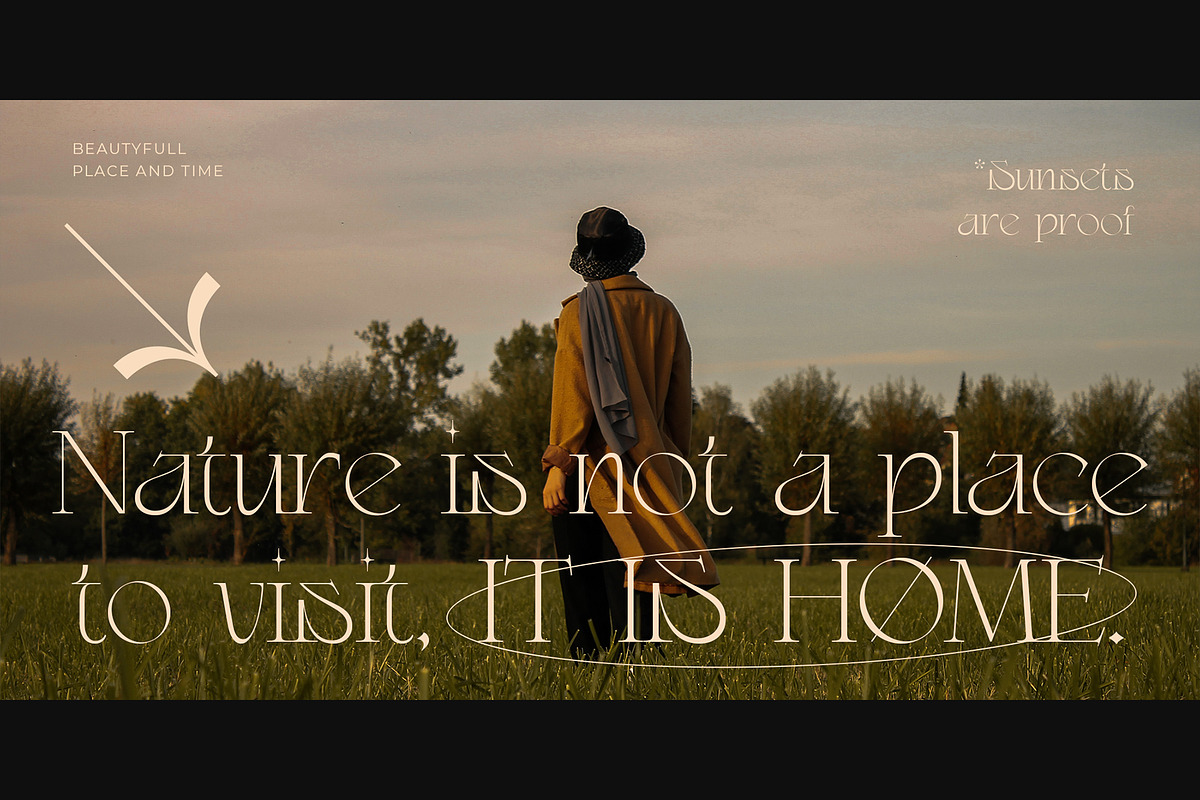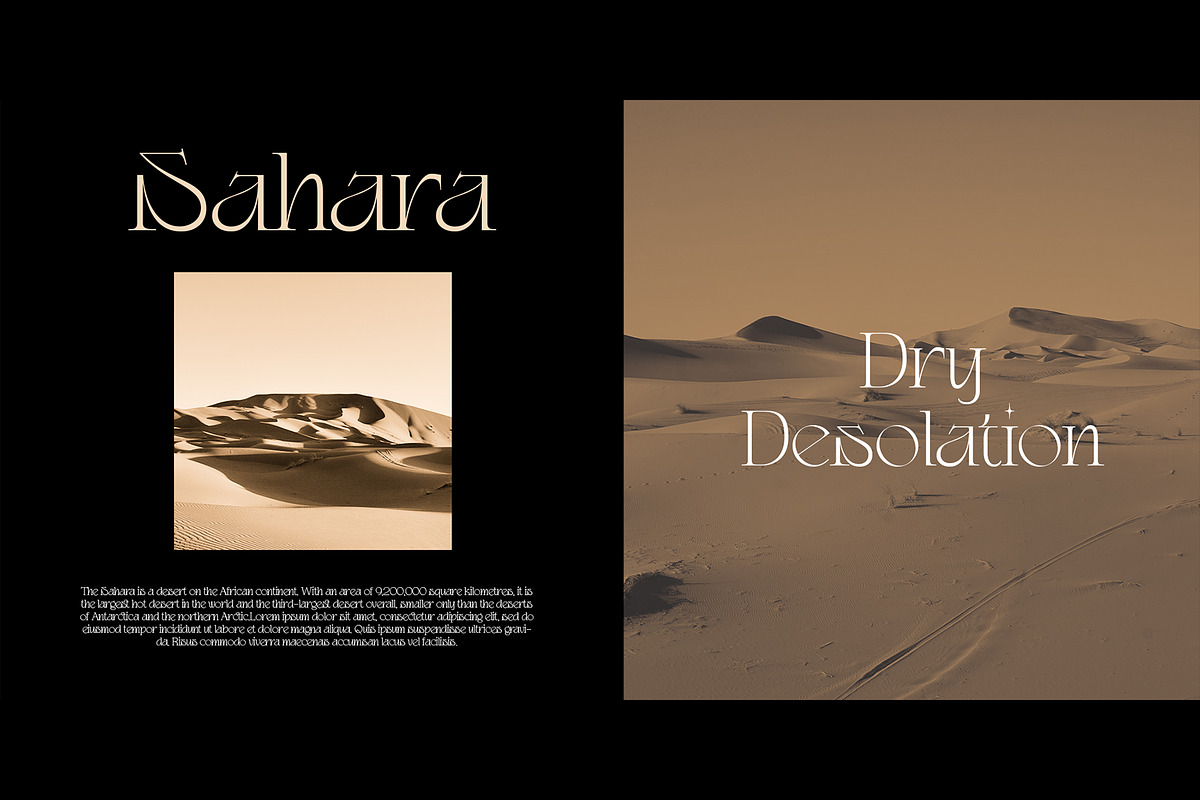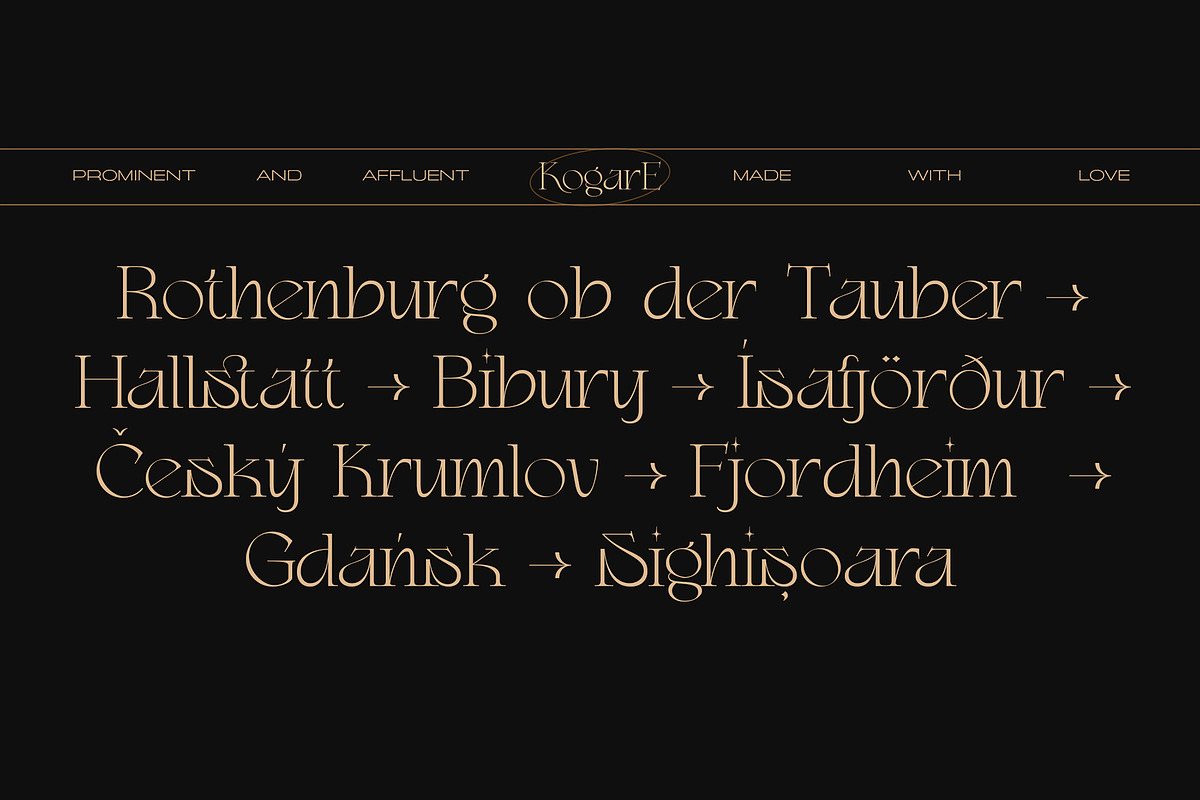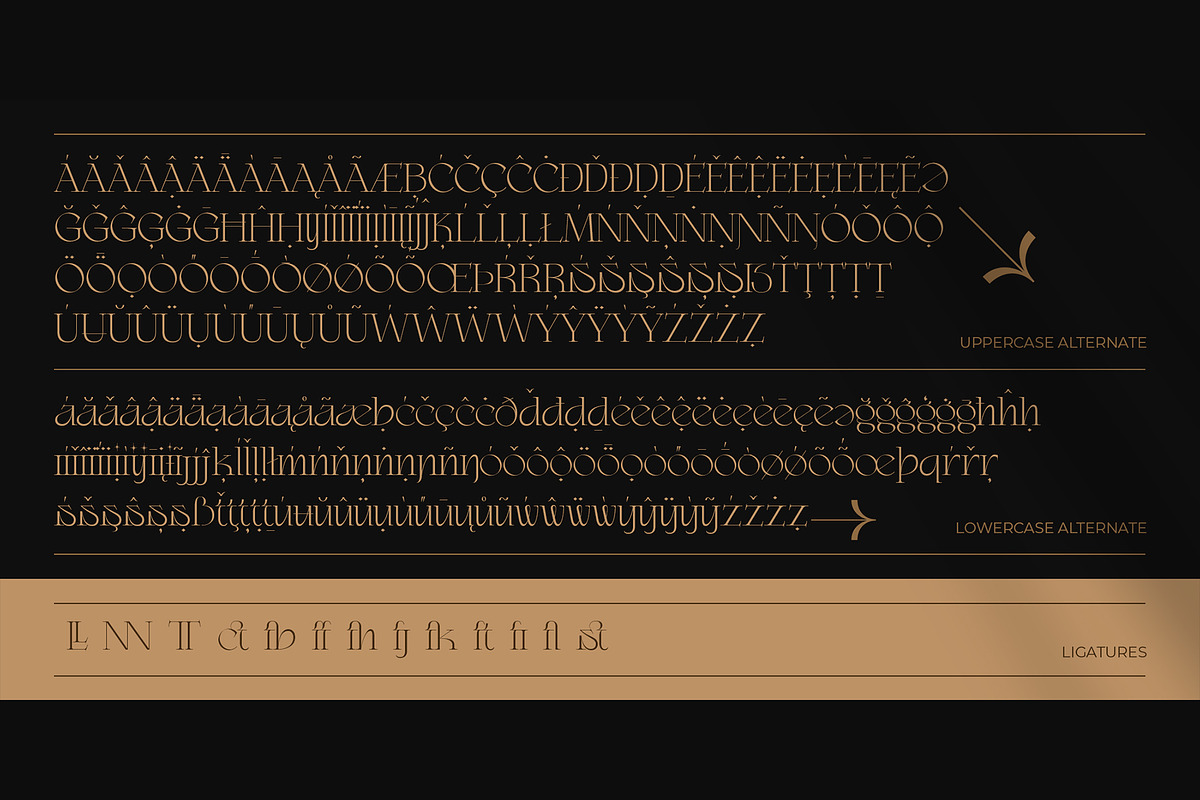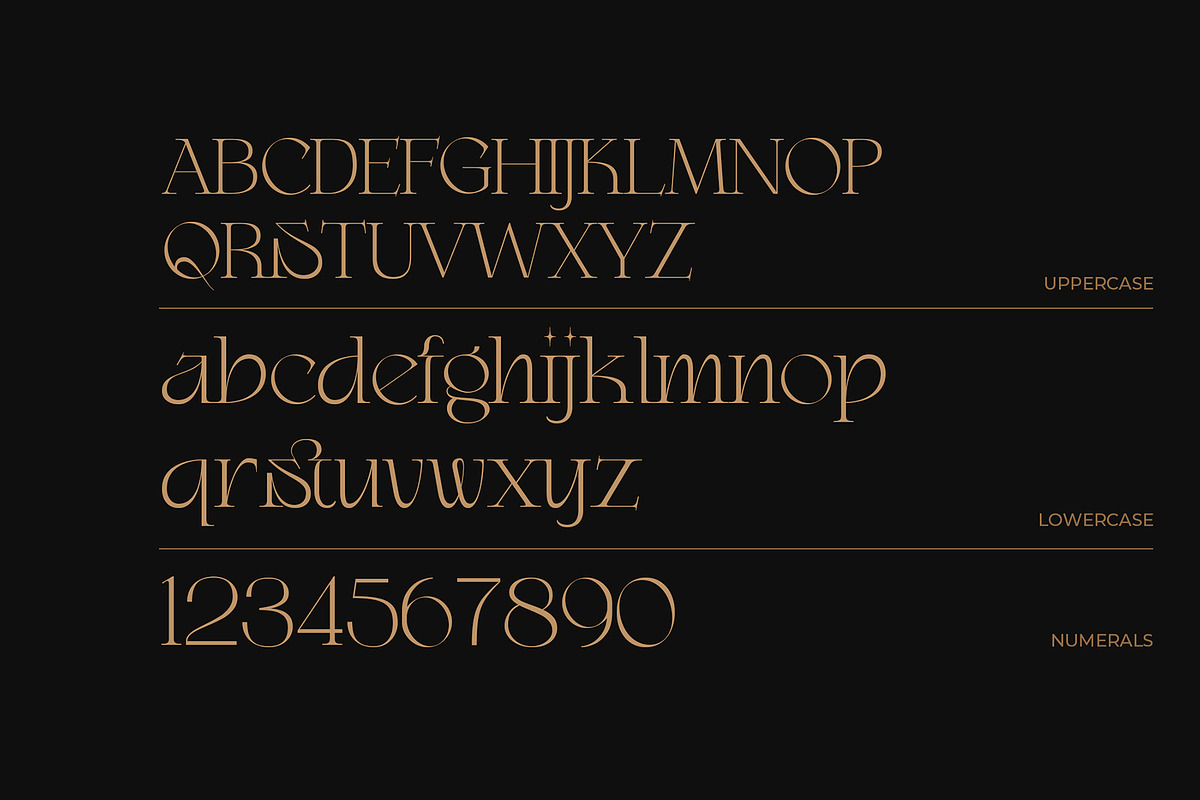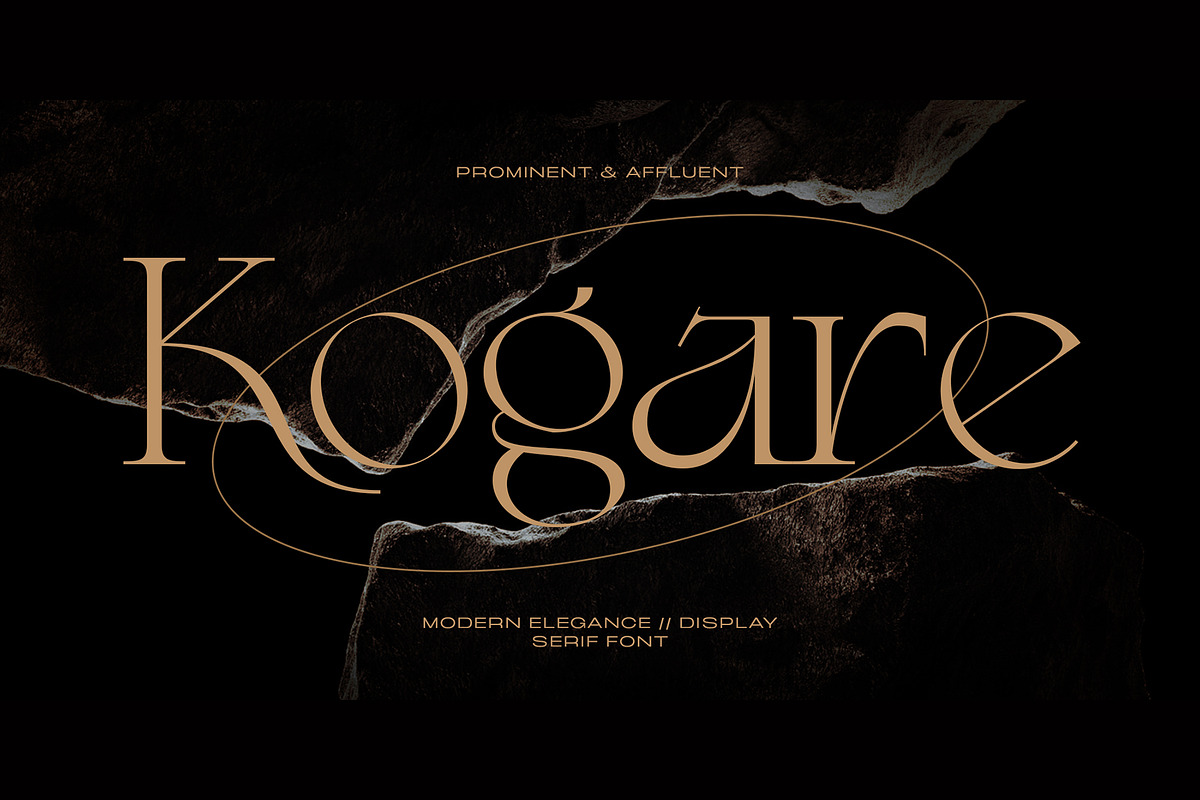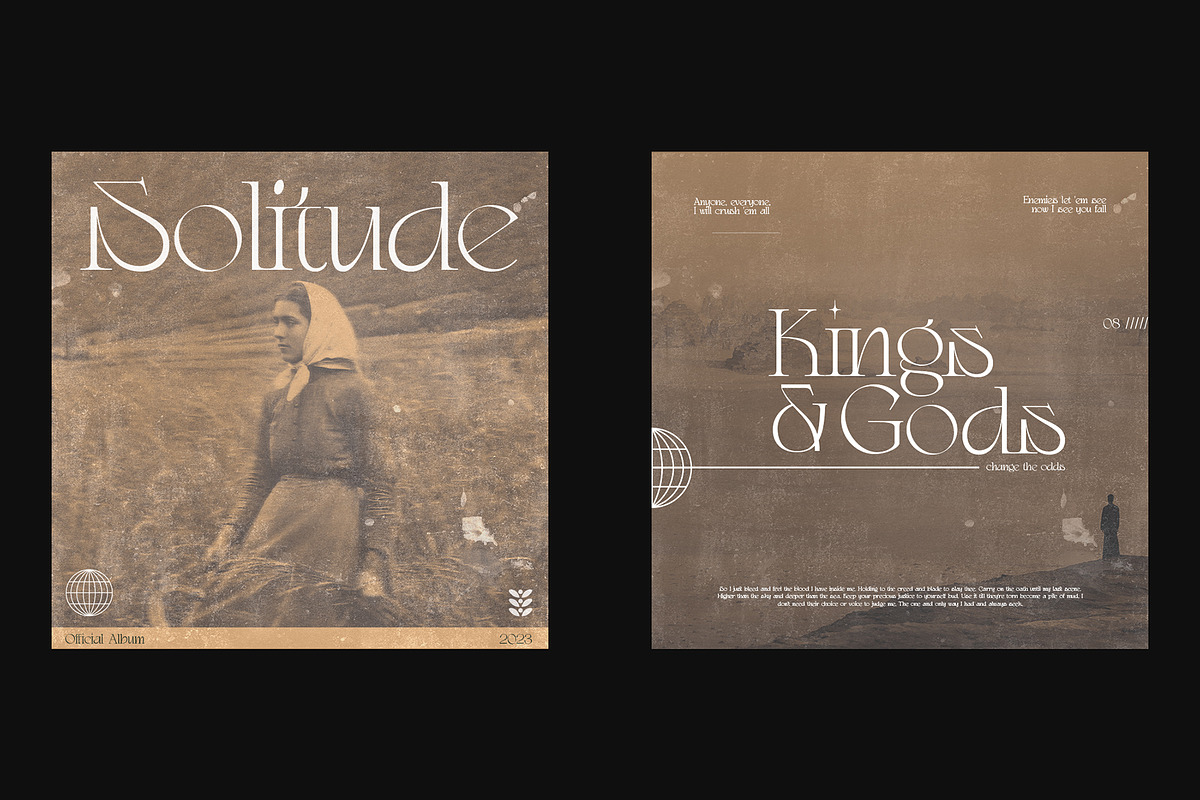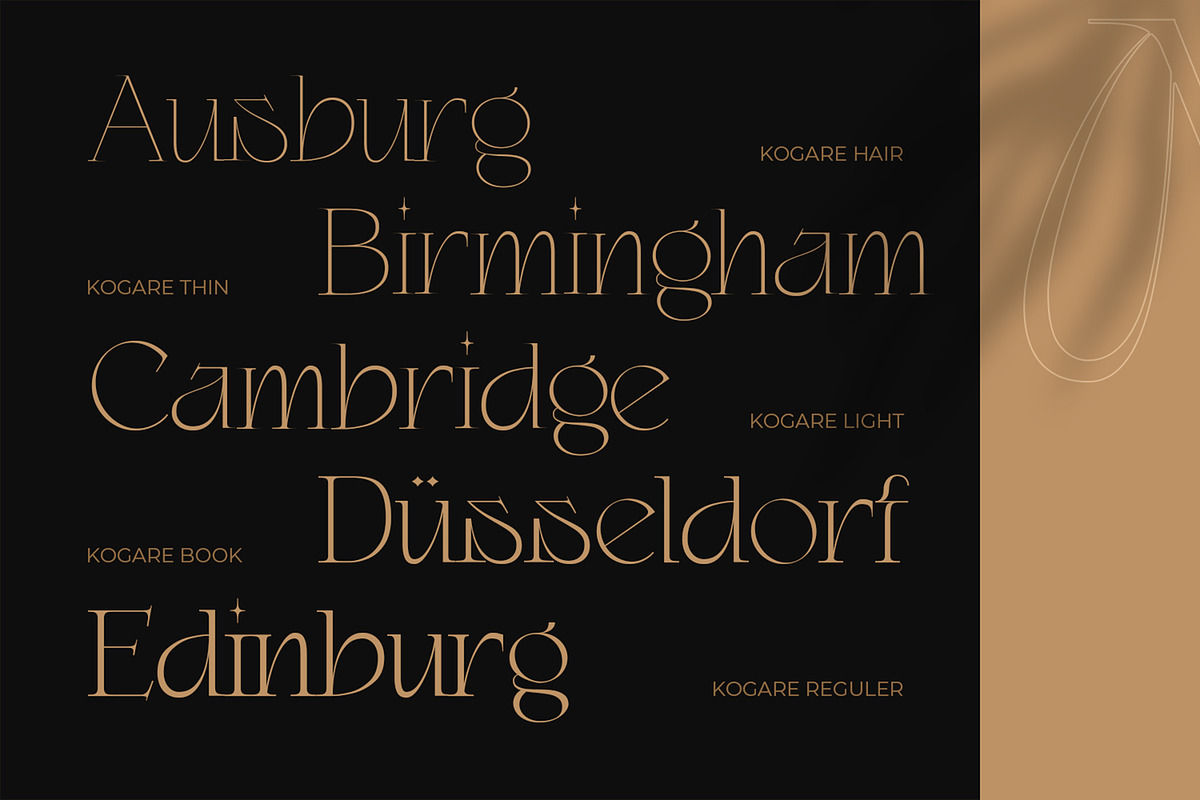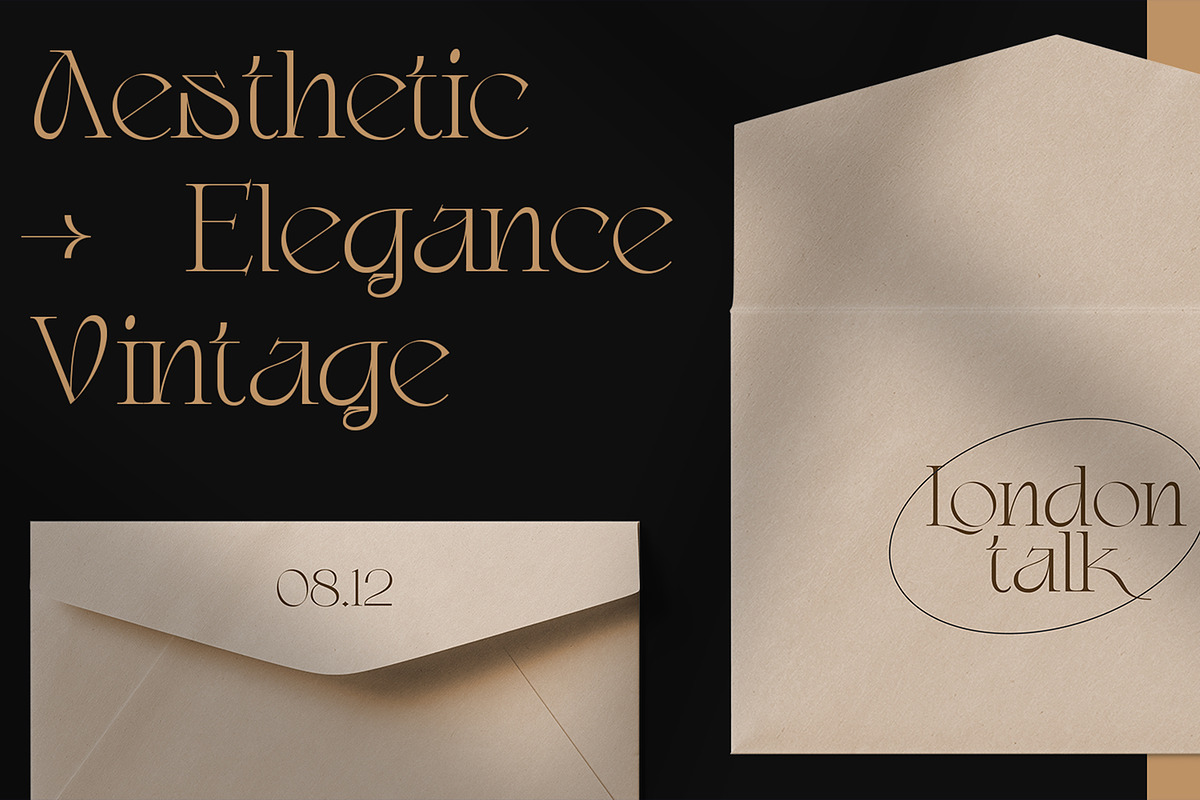
Kogare - Display Font
Experience the art of typography with Kogare, a meticulously crafted serif font that effortlessly encapsulates the essence of elegant design. Drawing inspiration from the timeless charm of classic serif writing, Kogare seamlessly marries tradition with modernity, offering a font that’s both timeless and contemporary. With Kogare, you’ll embark on a journey through the rich heritage of serif fonts. Its every curve and stroke has been thoughtfully designed to reflect the grace and sophistication that typifies classic typography. Yet, it also incorporates modern elements that make it versatile for a wide range of creative applications.
Whether you’re working on a formal document, a wedding invitation, or a branding project, Kogare is your trusted companion for evoking a sense of refined, timeless style. This font is more than just letters; it’s a bridge between the past and the present, allowing you to infuse your designs with the enduring beauty of classic serifs.
Elevate your designs to a new level of sophistication with Kogare. It’s more than just a font; it’s a testament to the harmonious fusion of tradition and modernity in the world of typography. Experience the magic of Kogare now and watch your creations come to life with timeless elegance.